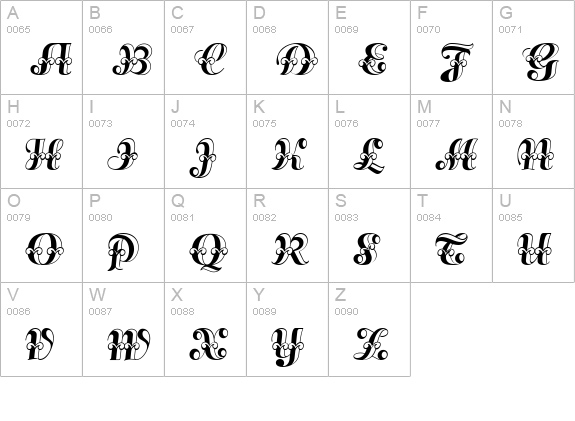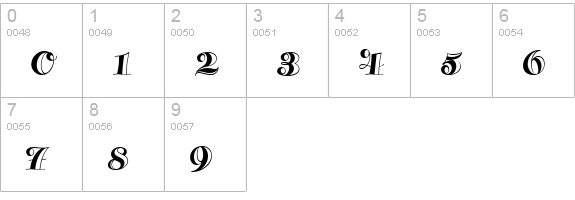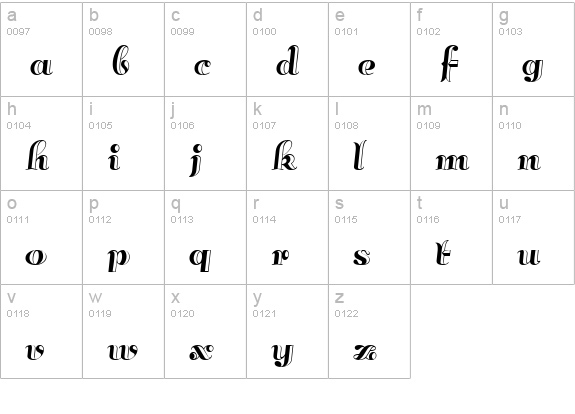
AnnabelleMatineeNF Font Details
AnnabelleMatineeNF is a charming and elegant font that exudes a sense of sophistication and playfulness. Its delicate curves and graceful lines make it perfect for a wide range of creative projects, from wedding invitations to branding materials. The font's unique style adds a touch of whimsy and refinement to any design, making it a versatile choice for both print and digital media. What sets AnnabelleMatineeNF apart is that it is available for free download at FontsMarket.com. This means that you can easily access this beautiful font without any cost, making it a valuable addition to your font collection. Whether you are a seasoned designer or just starting out, AnnabelleMatineeNF offers endless possibilities for your projects. Experience the beauty and versatility of this font today by downloading it for free at FontsMarket.com.